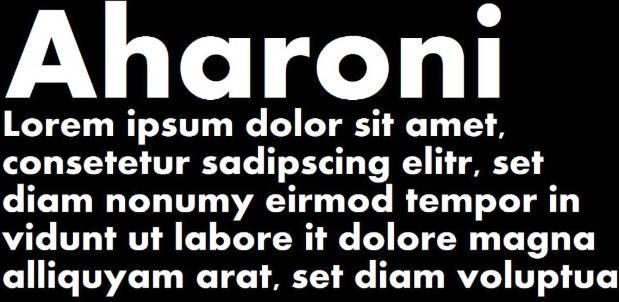
Aharoni is a Hebrew language typeface created by the Monotype Corporation and Kivun Computers Ltd, known best for its use in Microsoft Windows. Versions of it have been included in Windows 2000, XP, XP SP2, Server 2003, Server 2008, 7, 8 and 10.[1]
- Designer: Monotype Corporation, Kivun Computers Ltd